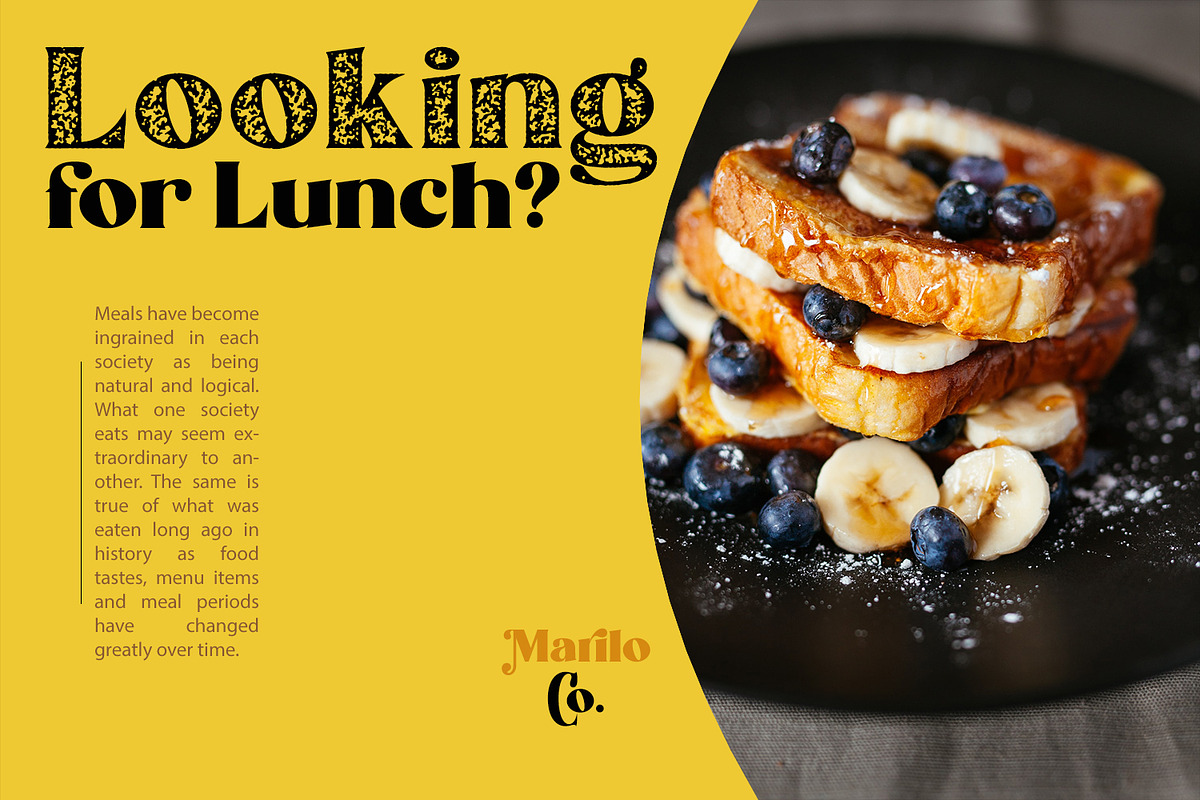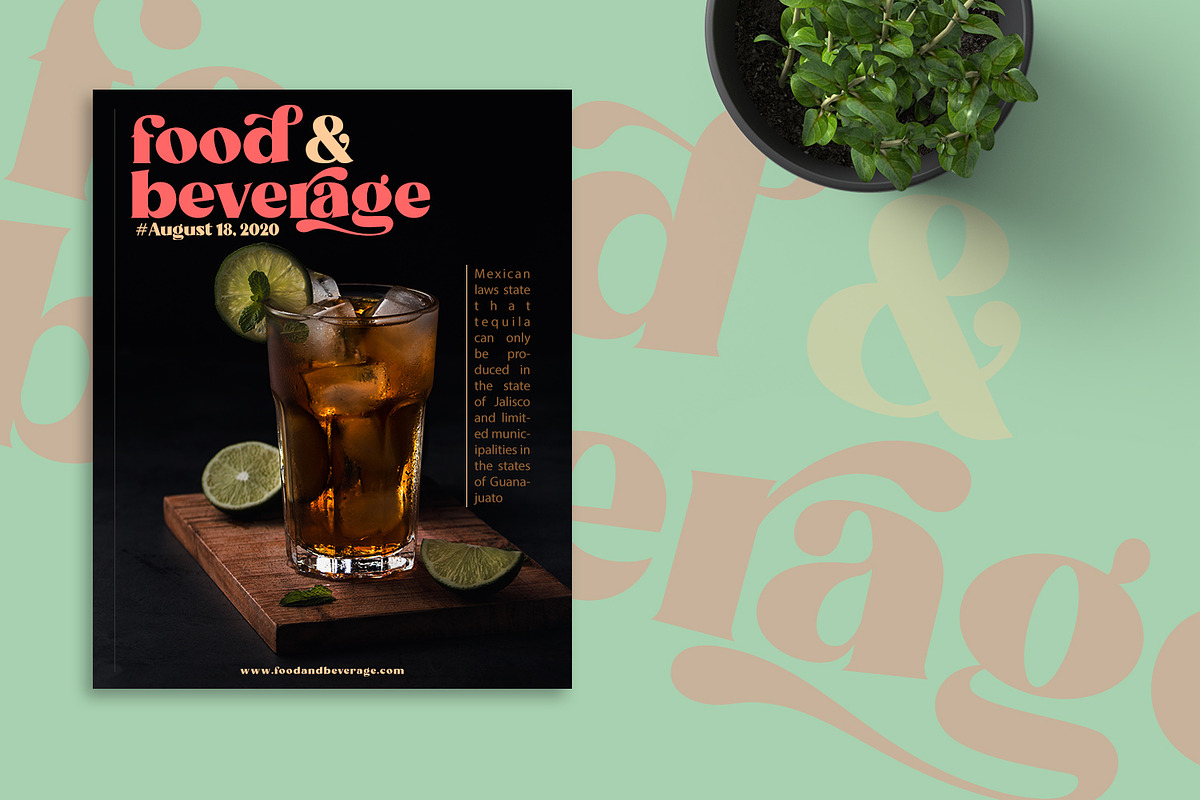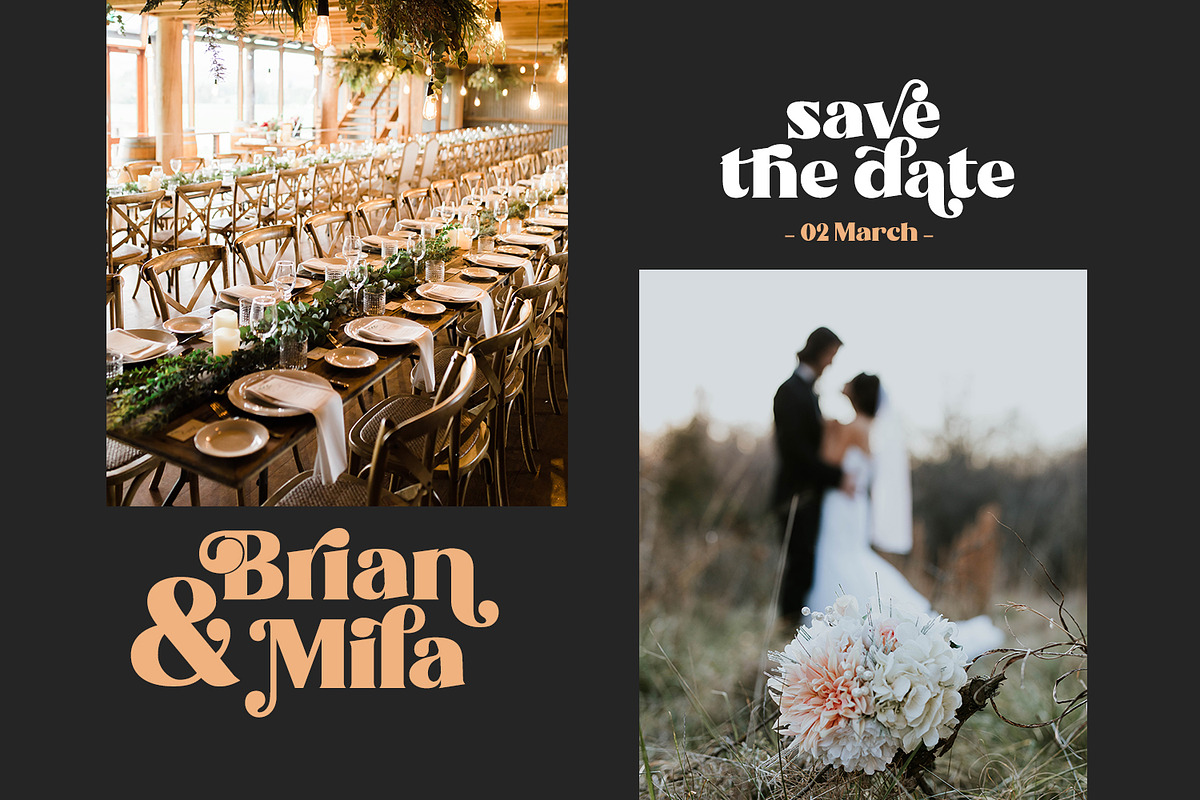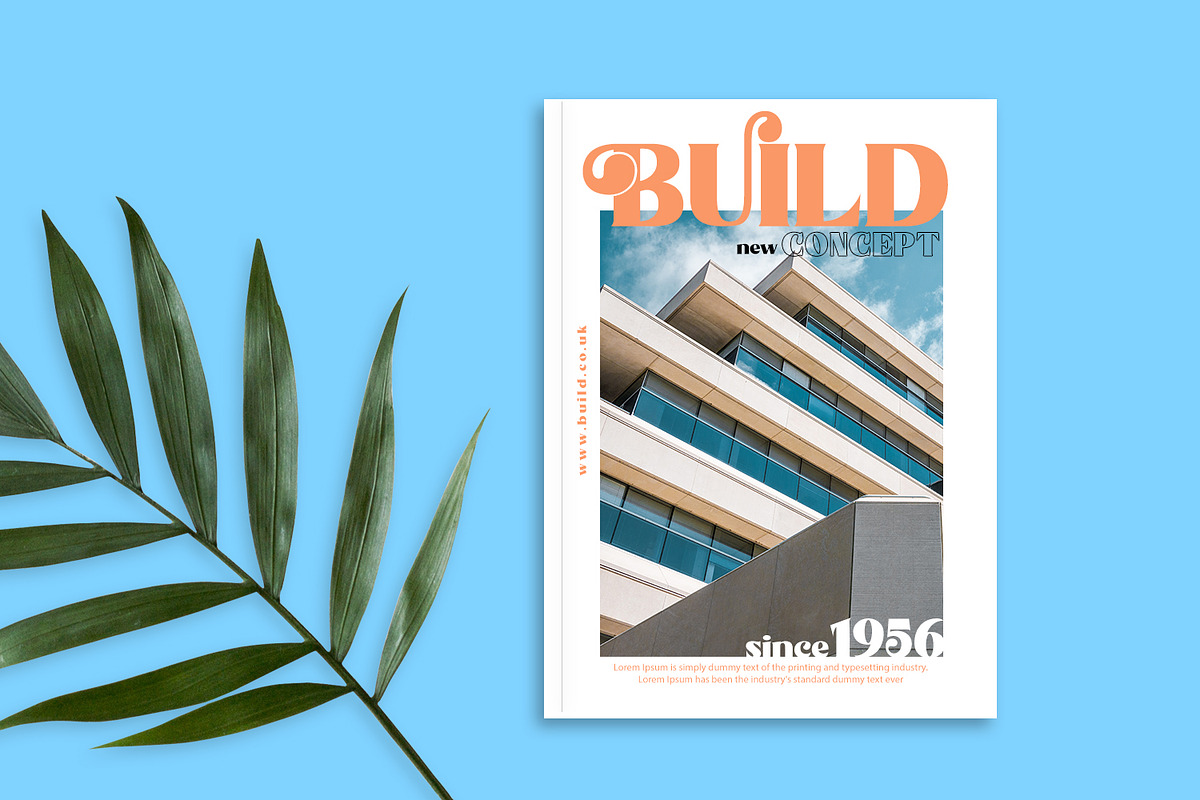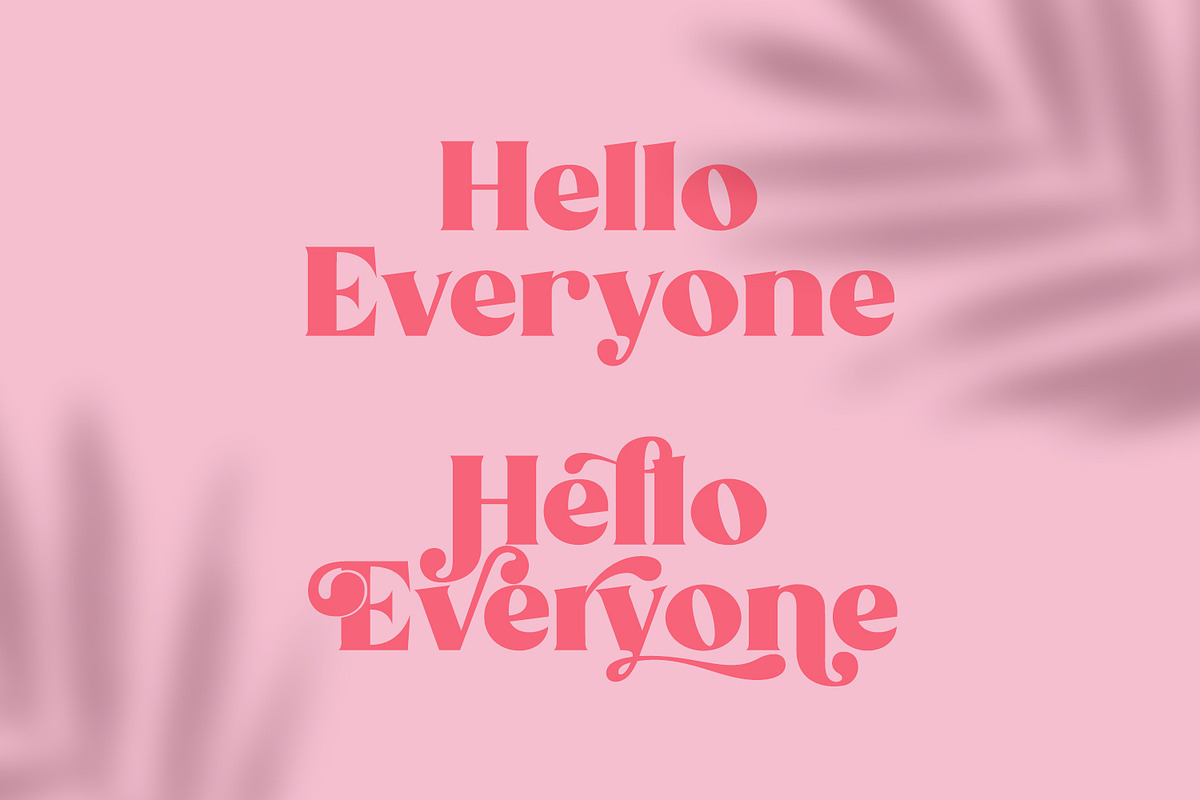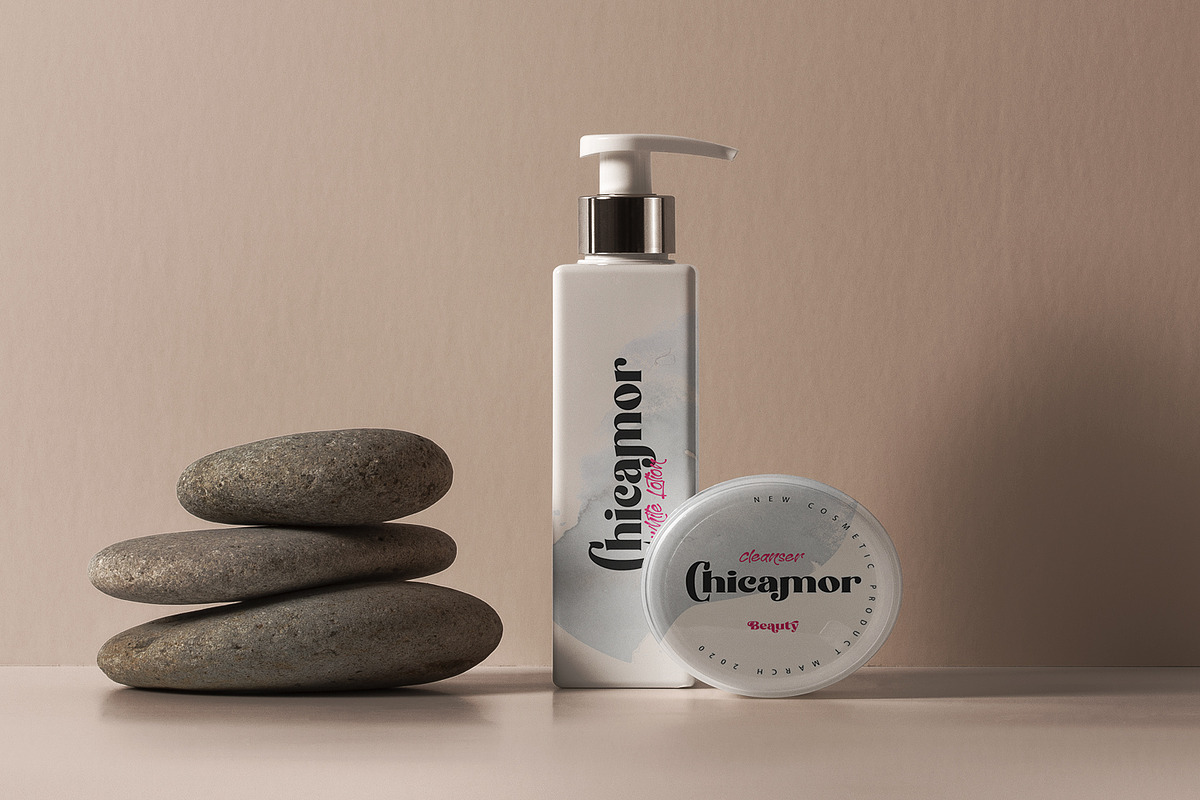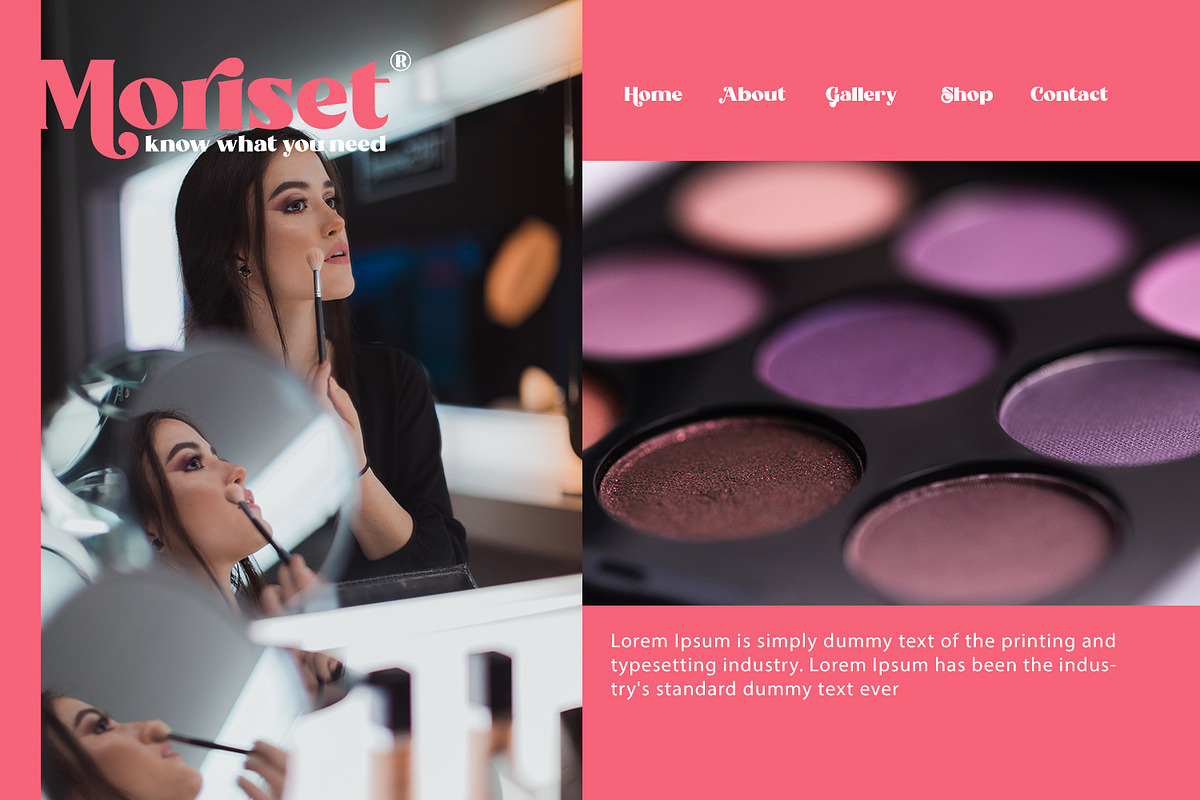
Prima - Luxury Typeface
Really excited to introduce
Prima is a luxury Typeface with contains ligatures and alternates each characters and comes with solid and rough version! A lot of stylish alternates characters will makes this font suitable for your any project design.
- A lot of stylish alternates characters will makes this font suitable for your any project design.
Why Prima - Luxury Typeface is worth a look
Prima - Luxury Typeface by madeDeduk fits naturally into Branding, posters, packaging, typography.